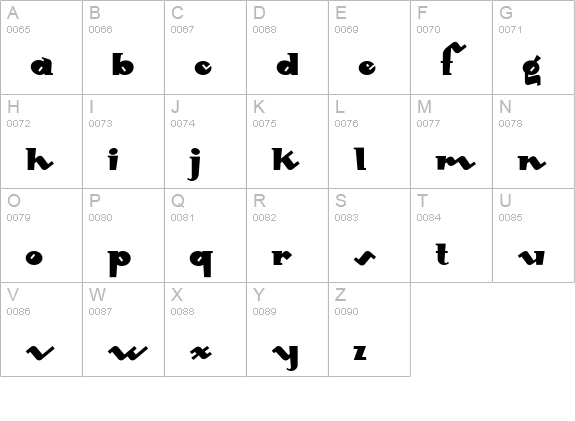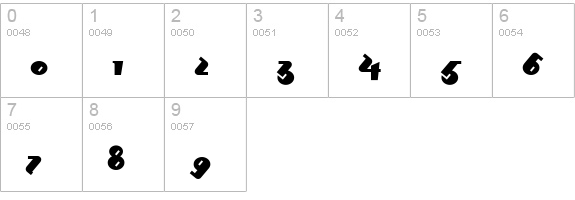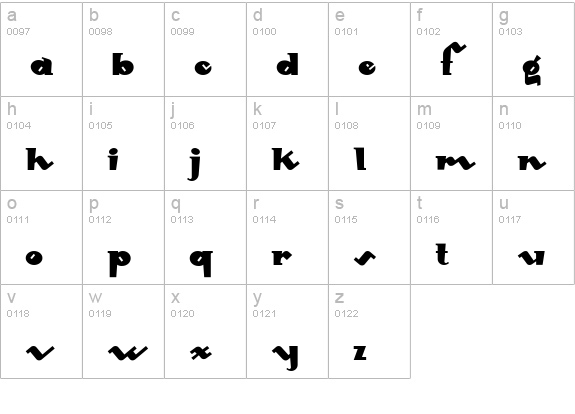
Mondo Redondo NF font is a playful and whimsical typeface that exudes a sense of fun and creativity. With its rounded edges and friendly appearance, this font is perfect for adding a touch of charm to any project. Whether you're designing greeting cards, posters, or branding materials, Mondo Redondo NF is sure to make your text stand out. What's even better is that Mondo Redondo NF is free to download at FontsMarket.com! This means you can easily access this delightful font and use it in your work without any cost. So why wait? Add a touch of whimsy to your designs with Mondo Redondo NF today!